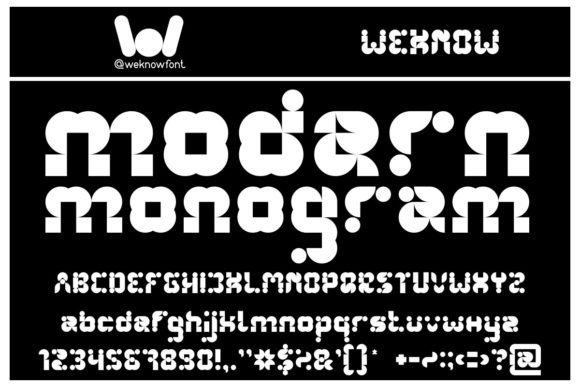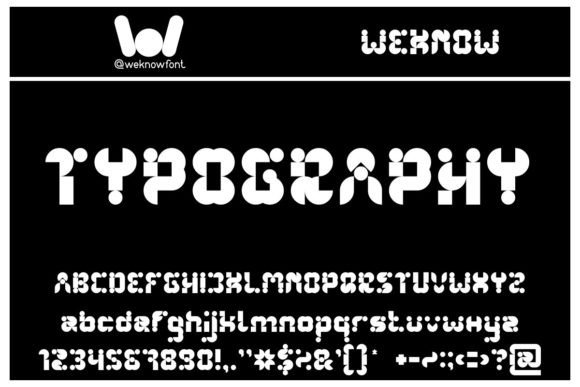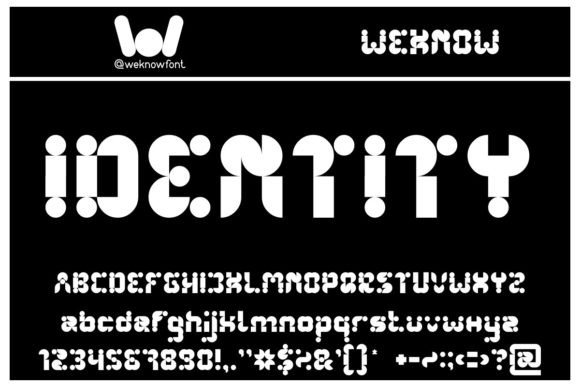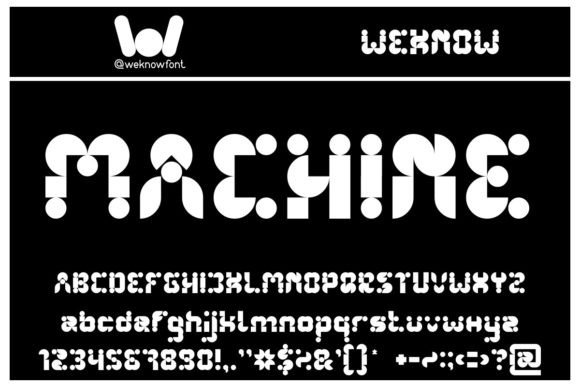
Introduction to Logotype Alphabet Font
Logotype Alphabet is a modern monogram decorative font suitable for a logo, logotype, headline, corporate identity, brand identity, apparel industry, poster, music, movie, game, magazine, book, comic, cartoon, YouTube, Instagram, website, or any of your creative design projects.
Logotype Alphabet is a modern monogram decorative font suitable for a logo, logotype, headline, corporate identity, brand identity, apparel industry, poster, music, movie, game, magazine, book, comic,